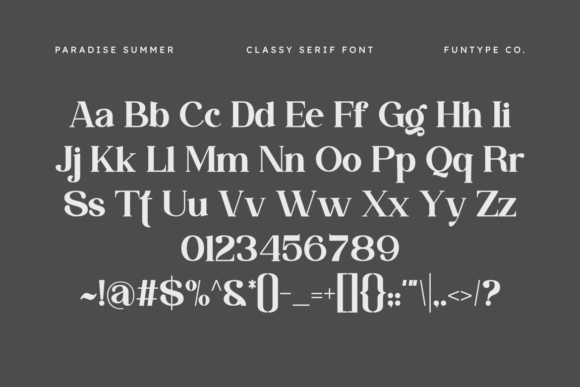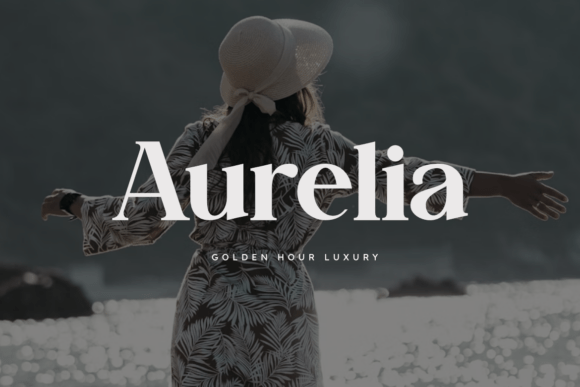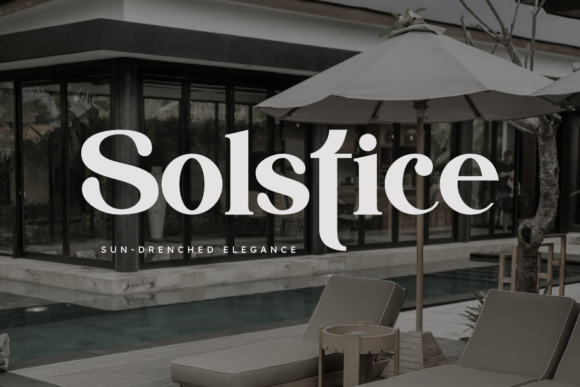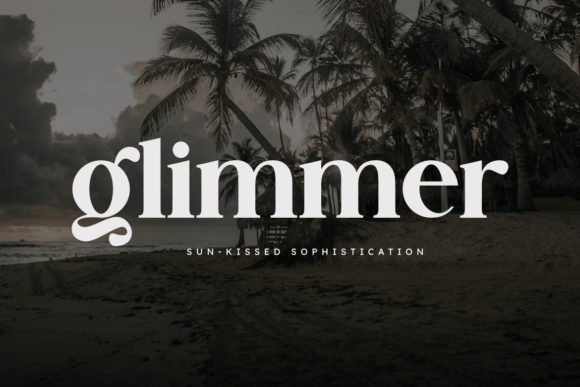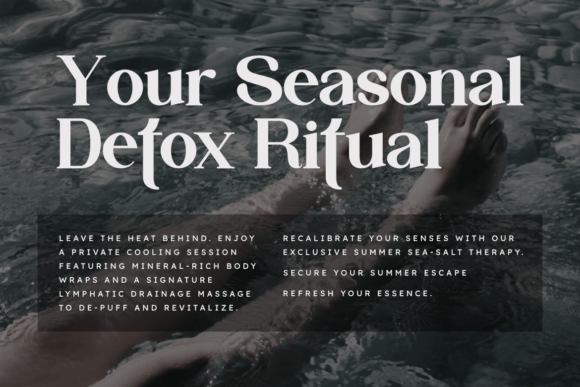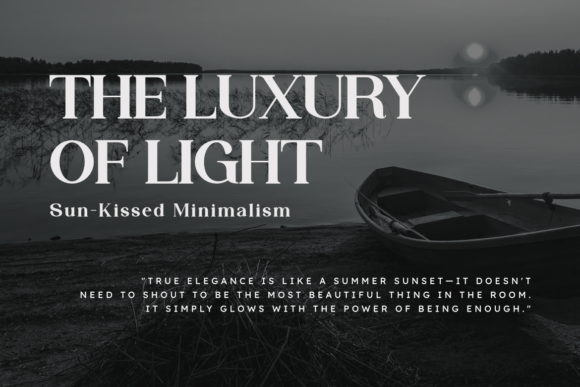
Introduction to Paradise Summer Font
Paradise Summer is a bold and powerful classy serif font designed for high-impact and precise typography.
With its refined solid structure and clean, elegant lines, this font is perfect for strong headlines, professional luxury branding, fashion logos, and high-impact digital posters Its confident and balanced design gives your visuals a striking, professional, and sophisticated look.
Key Features of Paradise Summer Font
Why Choose Paradise Summer Font?
Paradise Summer Font offers exceptional quality and versatility, making it a valuable addition to your design toolkit. Whether you’re creating for personal projects or commercial use, Paradise Summer Font delivers professional results.